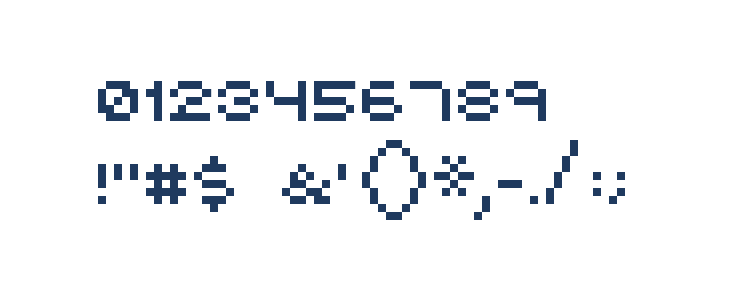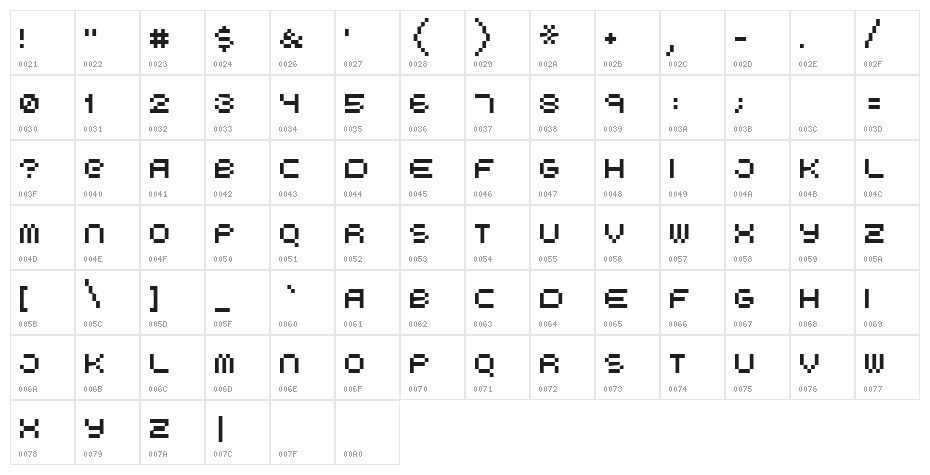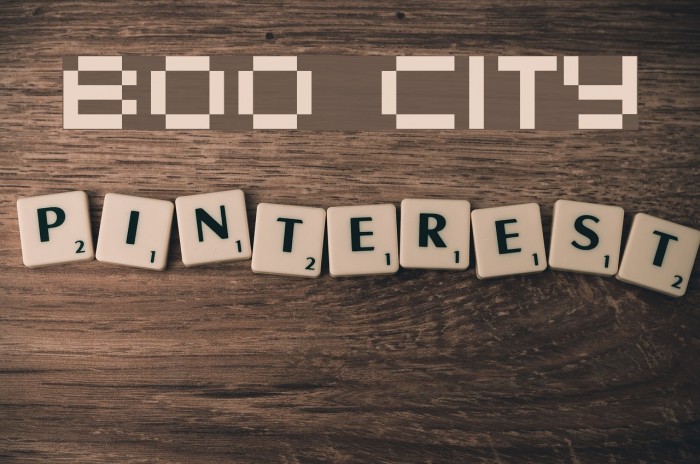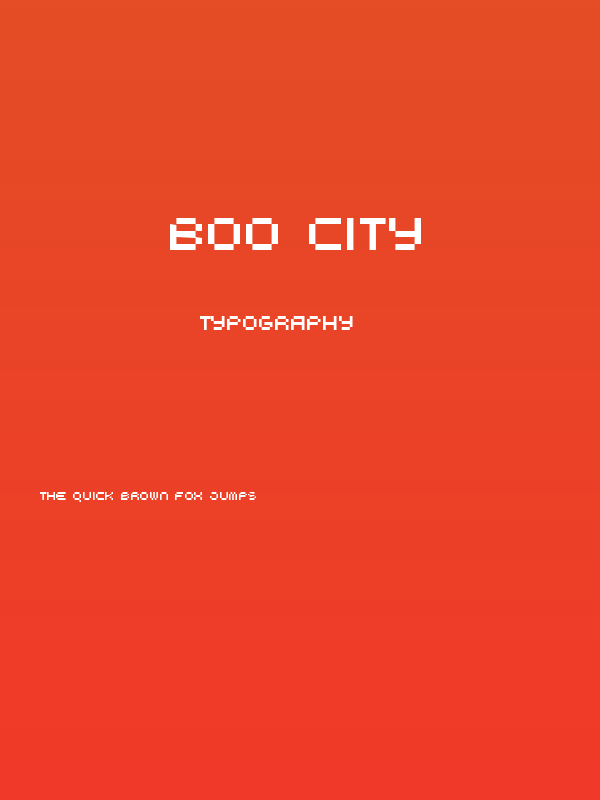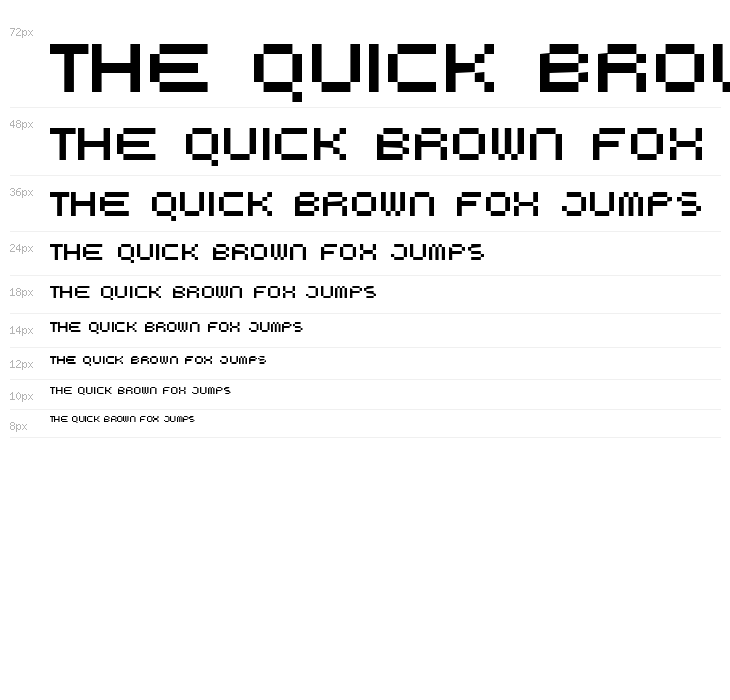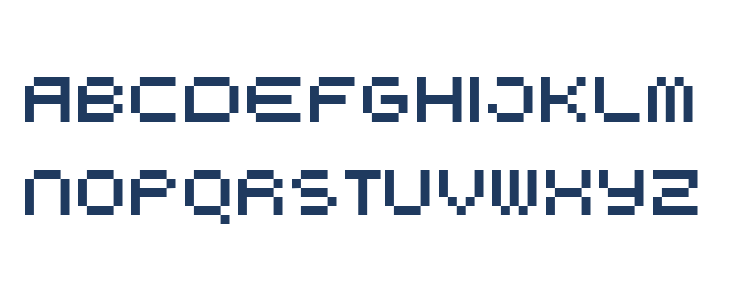
Boo City Font
Boo City Description
This font features a pixelated, blocky design reminiscent of early digital displays and retro video games. Each character is constructed with a grid-like precision, giving it a distinctly digital and geometric appearance. The uniformity in stroke width across all characters contributes to a cohesive and structured look. The uppercase and lowercase letters maintain a consistent height, enhancing readability while preserving the font's unique style. Numbers and special characters follow the same pixelated pattern, ensuring a harmonious visual experience throughout. This font is ideal for projects that aim to evoke nostalgia or a tech-oriented theme.
| Overall Style | Retro, Digital |
| Use Case | Headlines, Logos, Digital Art |
| Proposed Projects | Perfect for retro video game designs, tech-themed posters, digital art, and nostalgic branding projects. |